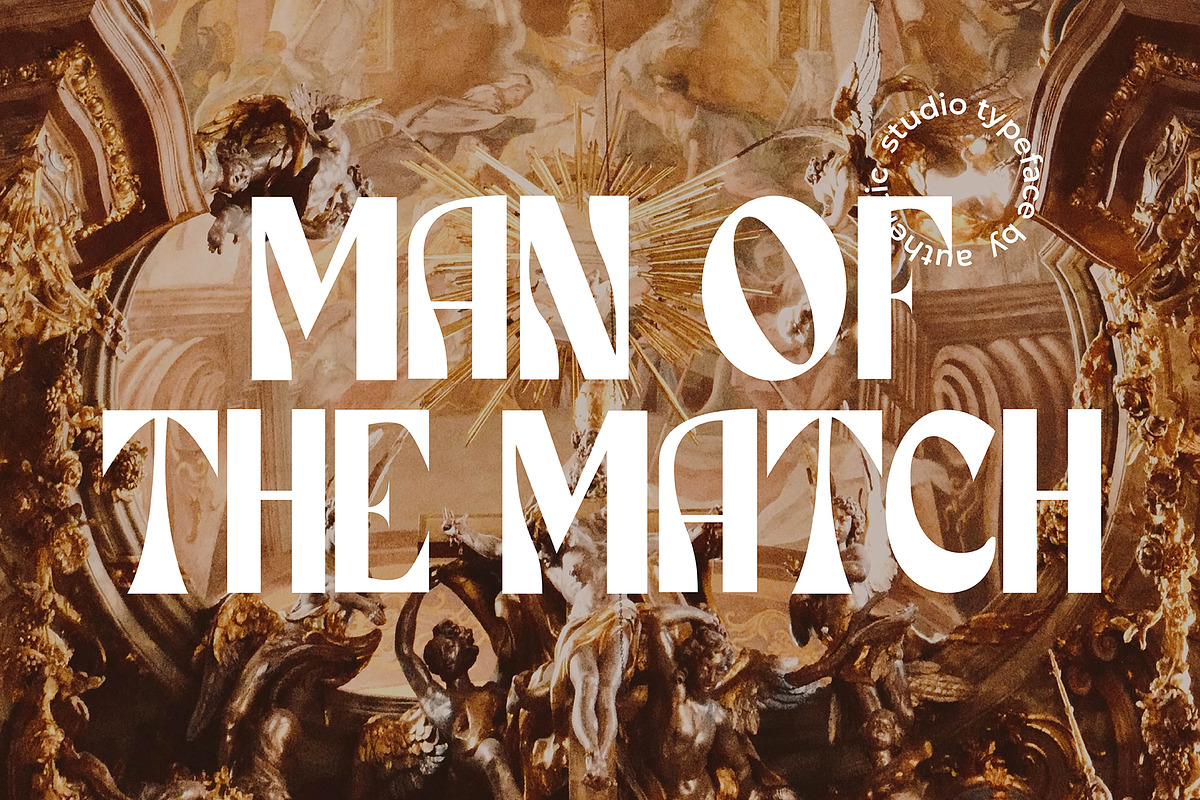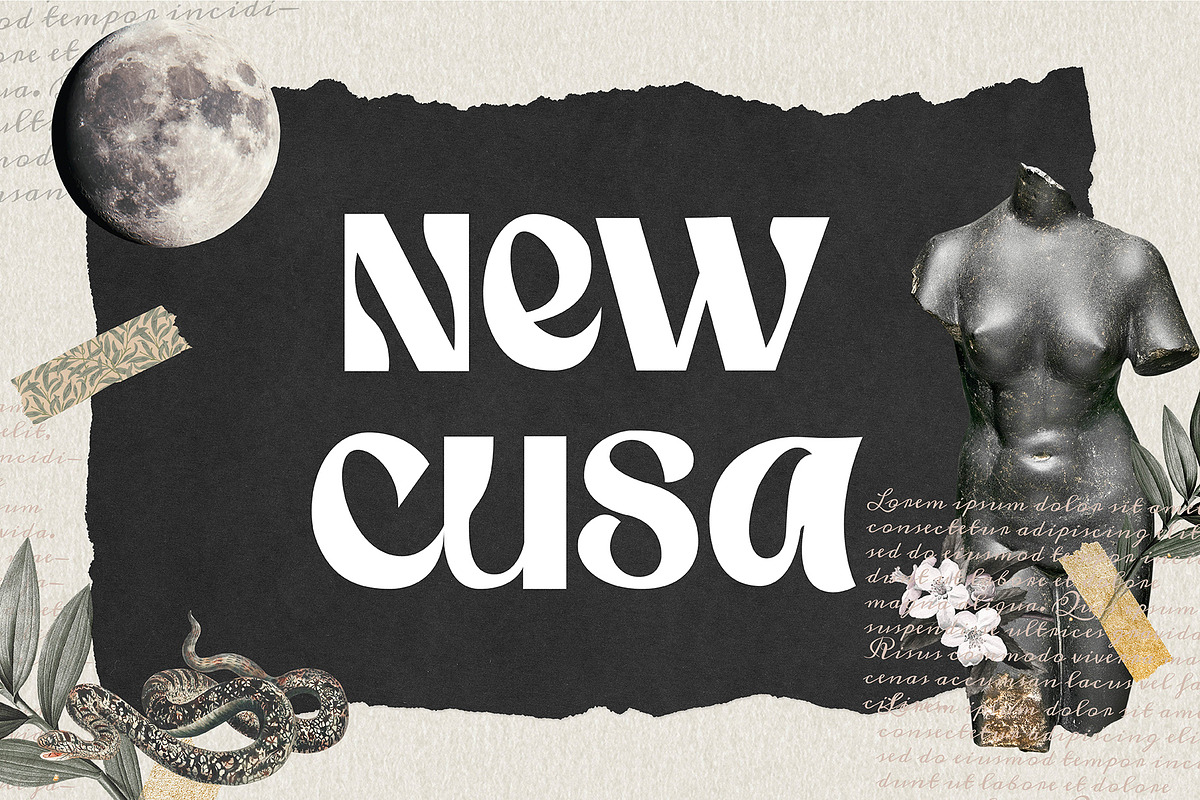
Narnia Font
Narnia is a psychedelic-inspired typeface. It’s retro, bold, and playful. Perfect if you need a dose of fun in your project. Add just the right amount of vintage flair to your retro graphics with this original psychedelic-style design.